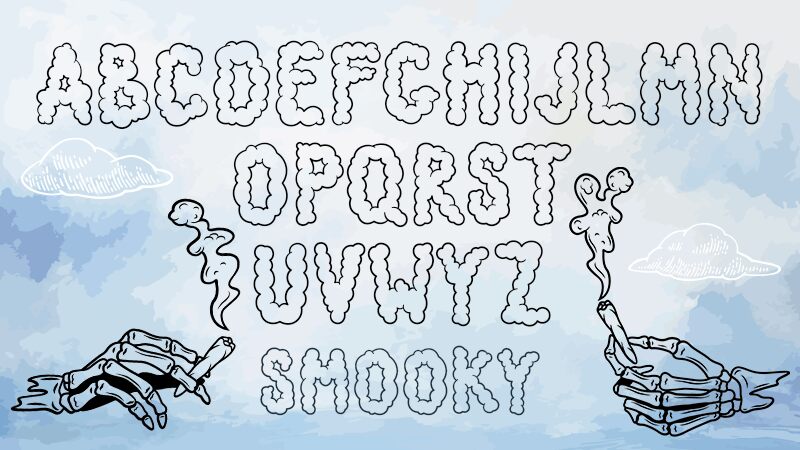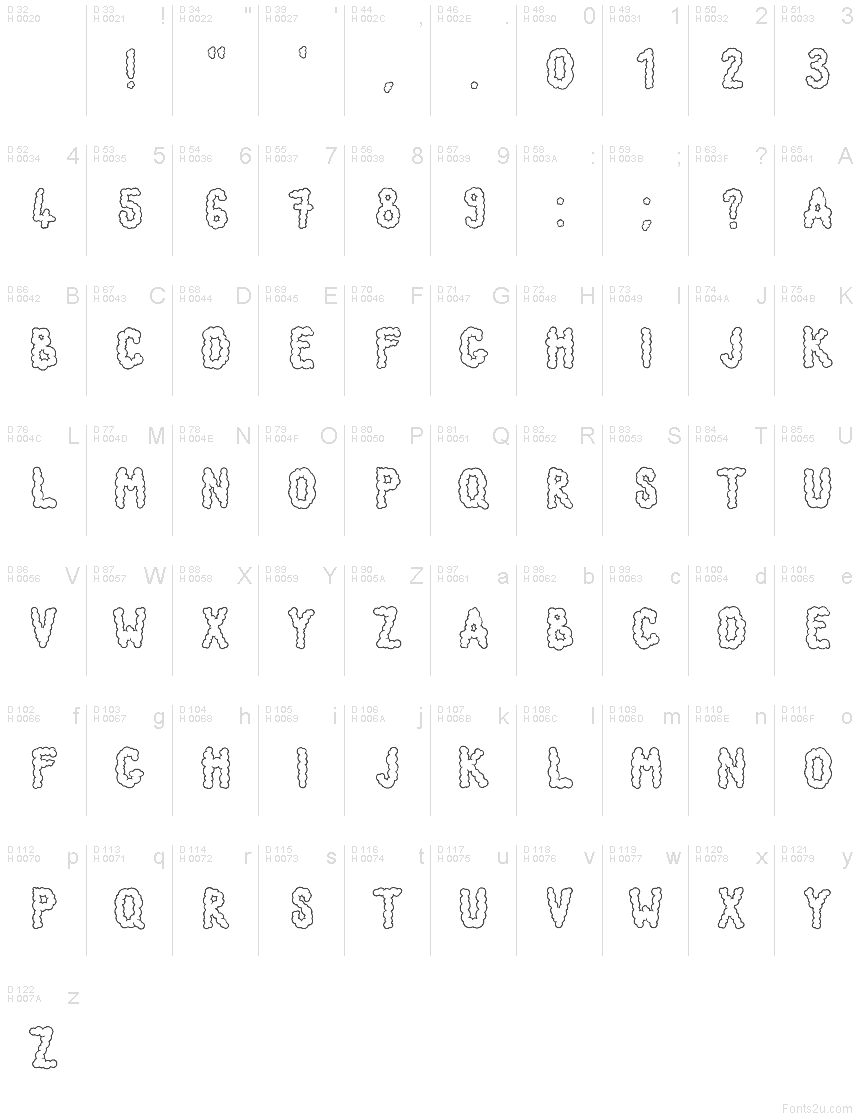
Smooky
Smooky font by Biroakakarati is a free cartoon outline typeface that looks like puffy clouds of smoke drifting across the page. Each letter wobbles with a hand-drawn, slightly eerie charm—soft, rounded shapes traced by a thin, scratchy line that feels straight out of a spooky comic strip. It hits that playful-creepy sweet spot: lighthearted enough for kids, but still ghostly enough for late-night themes and Halloween branding.
Using Smooky, this free font shines on Halloween posters, trick-or-treat bags, kids’ book covers, party invitations, YouTube thumbnails, and themed stickers or packaging. The airy outlines give you plenty of room for color fills, gradients, or textures behind the letters, so it’s easy to customize. For readability, pair Smooky with a clean, simple sans serif in the smaller text and let Smooky take over the big, bold titles.